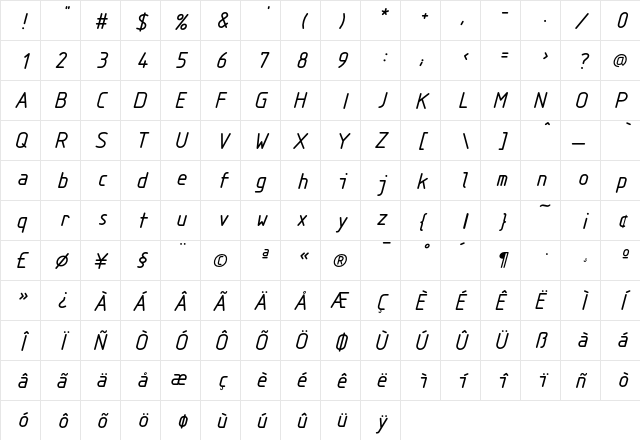
Isonorm MonospacedItalic
Design Context for Isonorm Typeface
Isonorm brings the precise, column-aligned rhythm of monospaced typography to designs that value technical clarity and systematic order. Its italic angle brings a sense of urgency and motion to the letterforms.
Pro Tip: Pair Isonorm with a proportional sans for UI contexts where code-style labels and regular body copy need to coexist.